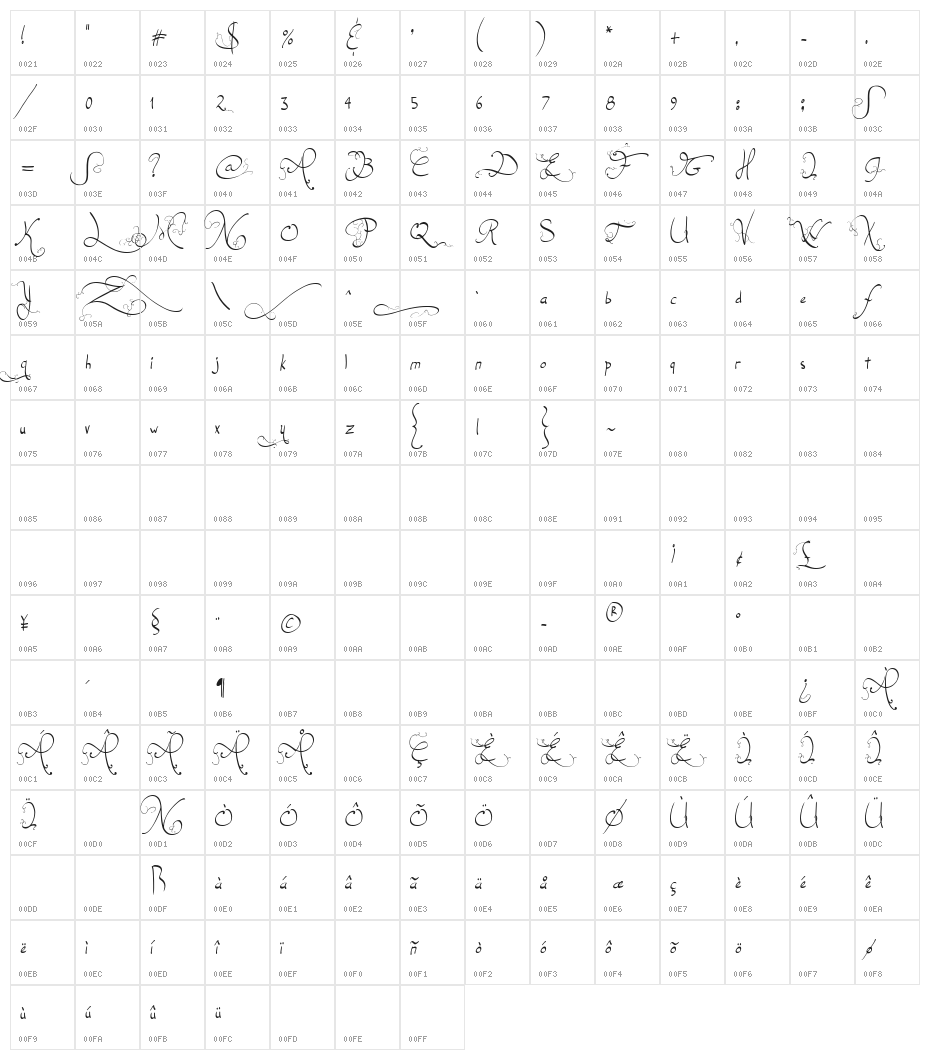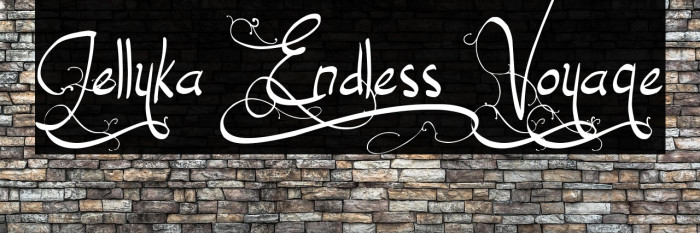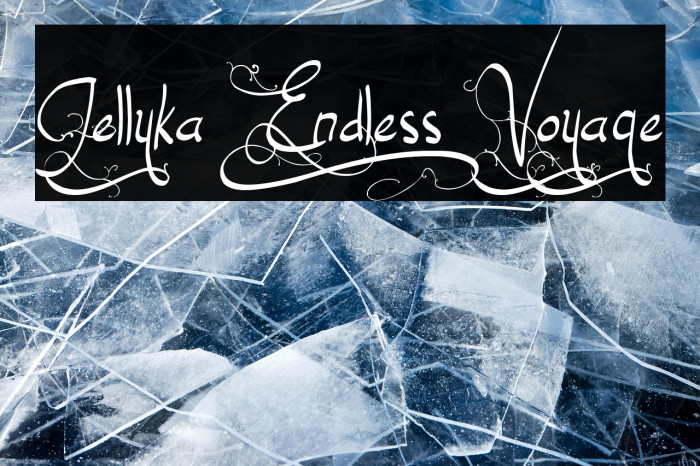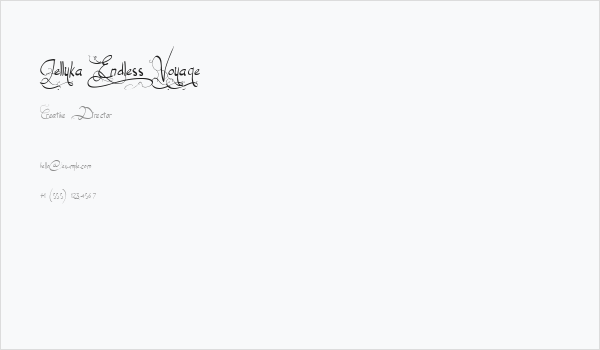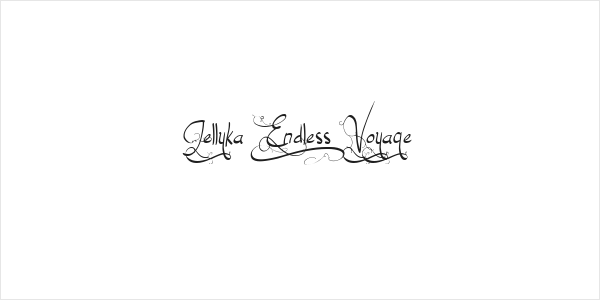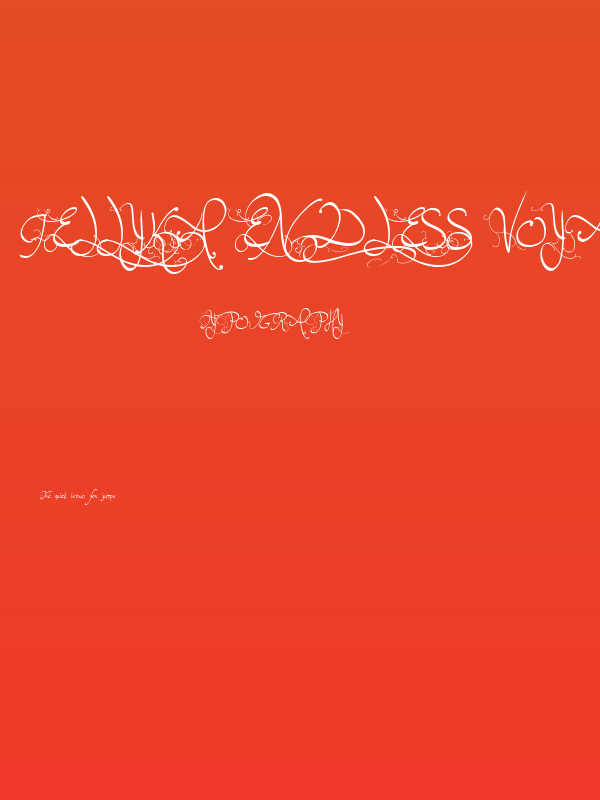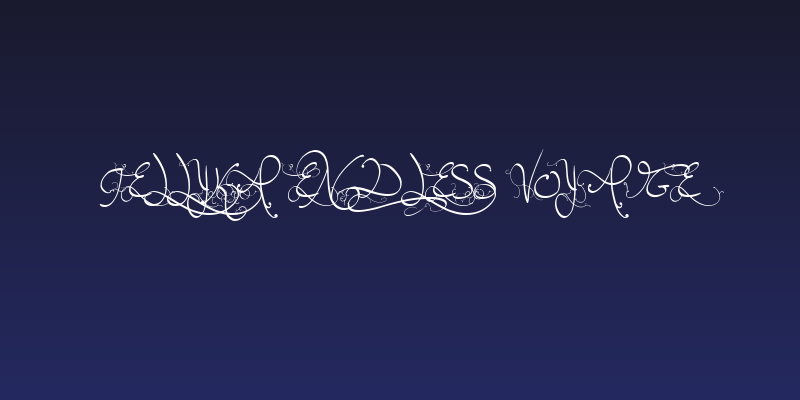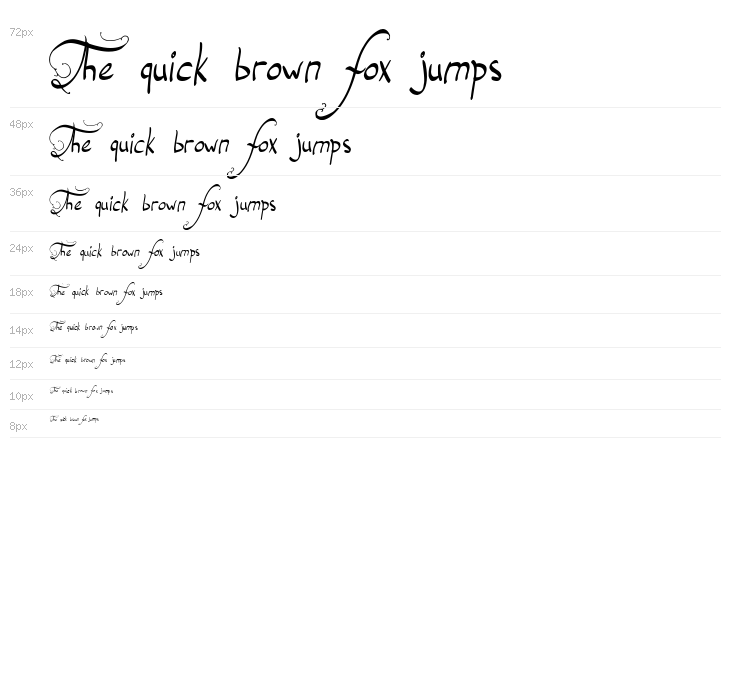
Jellyka End_less Voyage Font
Jellyka End_less Voyage Description
This font features an elaborate and decorative script style, characterized by its flowing, ornate letterforms with intricate swirls and embellishments. The uppercase letters are particularly elaborate, with many extending flourishes that give a sense of elegance and sophistication. The lowercase letters maintain a more restrained yet still decorative appearance, ensuring readability while retaining the font's artistic flair. Numbers and special characters are designed with similar attention to detail, making them cohesive with the overall style. This font is ideal for projects that require a touch of elegance and creativity, such as invitations, greeting cards, or artistic branding.
| Use Case | Logos, Invitations, Artistic Branding |
| Proposed Projects | Ideal for wedding invitations, greeting cards, artistic branding, and decorative projects. |